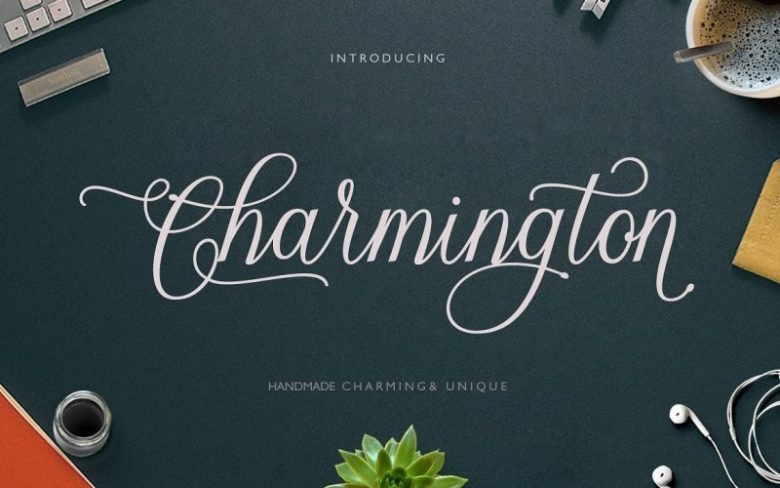
Charmington Script Font
Hi … Introducing the latest Charmington Script style with modern style, This font is casual and pretty with a scratch. Can be used for various purposes. such as logos, product packaging, wedding invitations, branding, headlines, nameplate, labels, signatures, book covers, posters, quotes and more.
Hopefully you are interested in this font, if you want to use your work, this font can be used easily and simply because there are many features. in it contains a complete set of lowercase and capital letters, various punctuation, numbers, and multilingual support.
Fonts also contain several ligatures and Alternate Style Stylistic Sets for those of you who have software that works OpenType (Photoshop / Illustrator / InDesign).